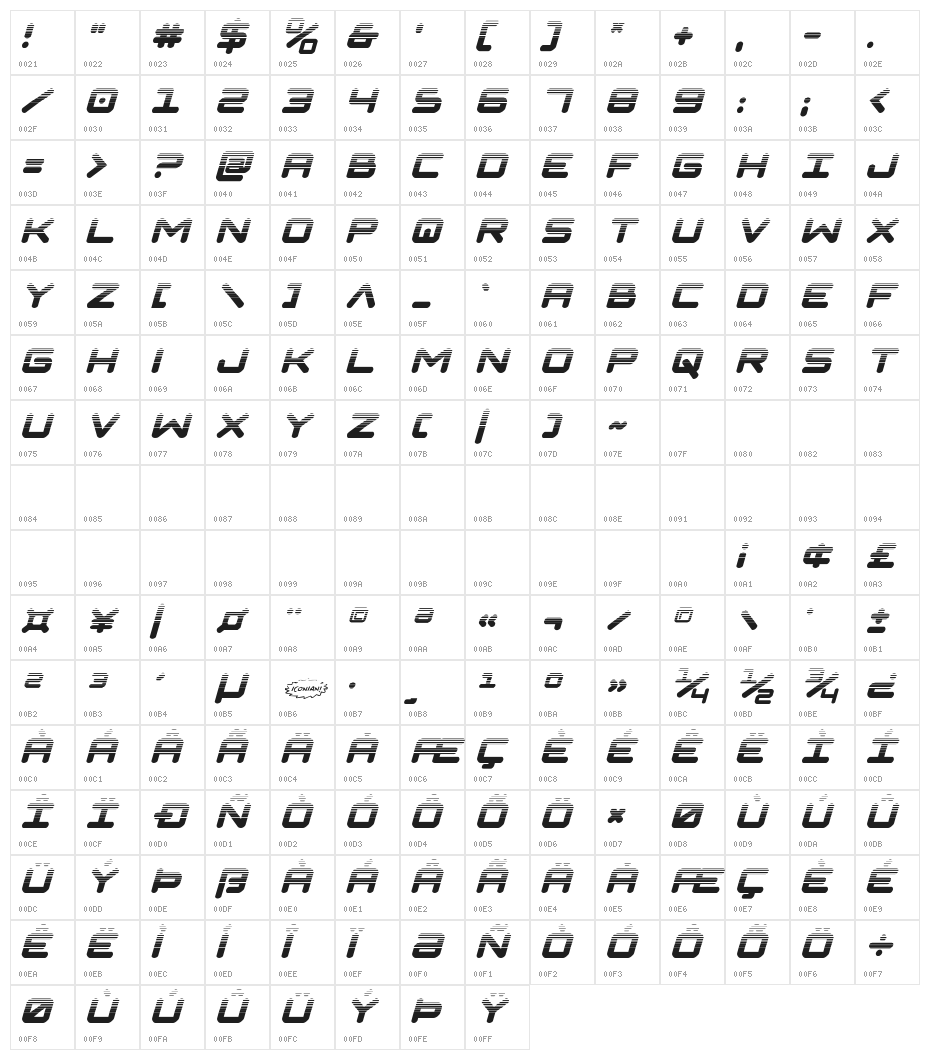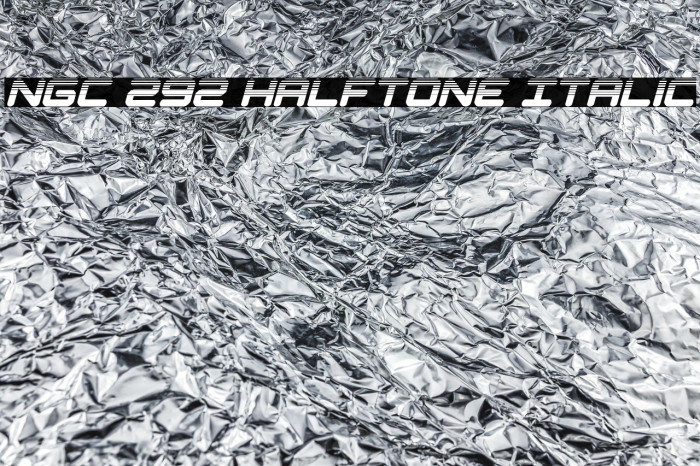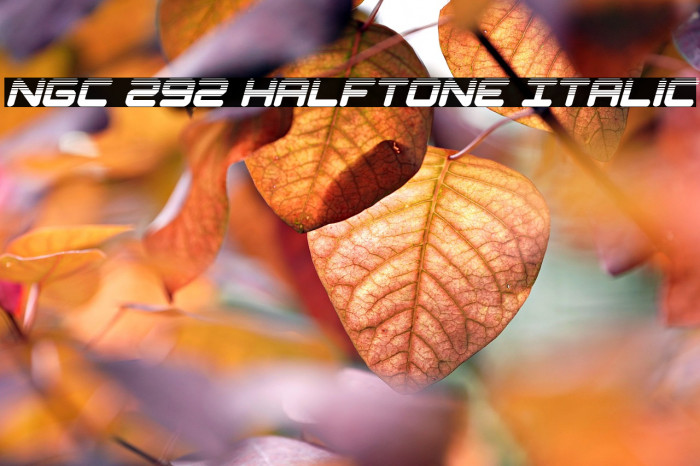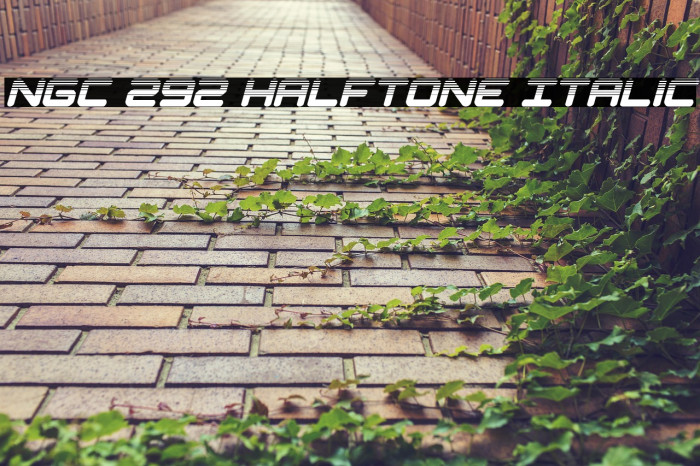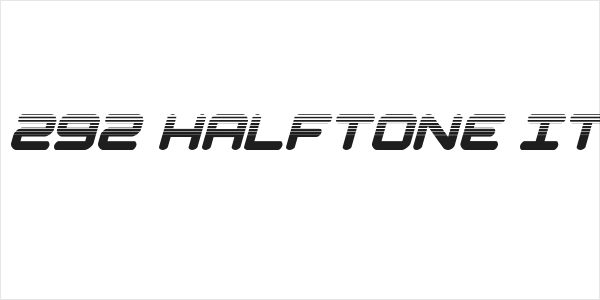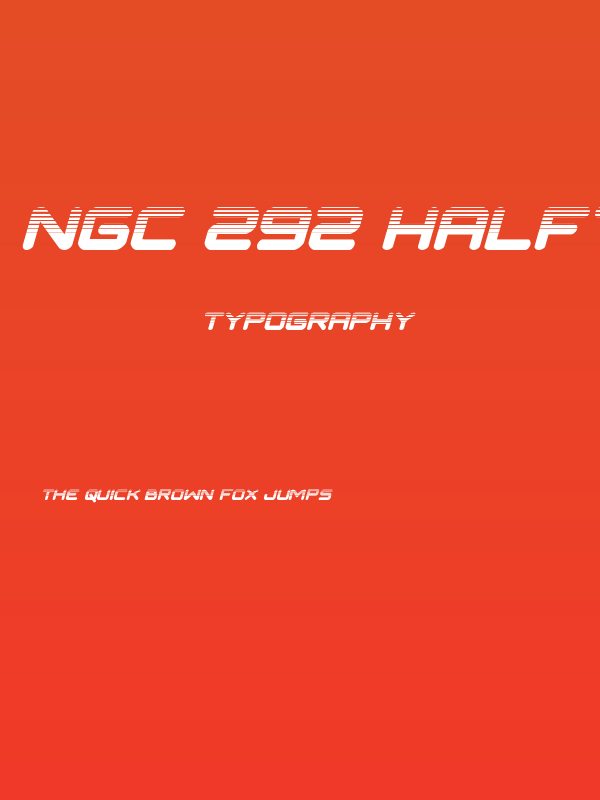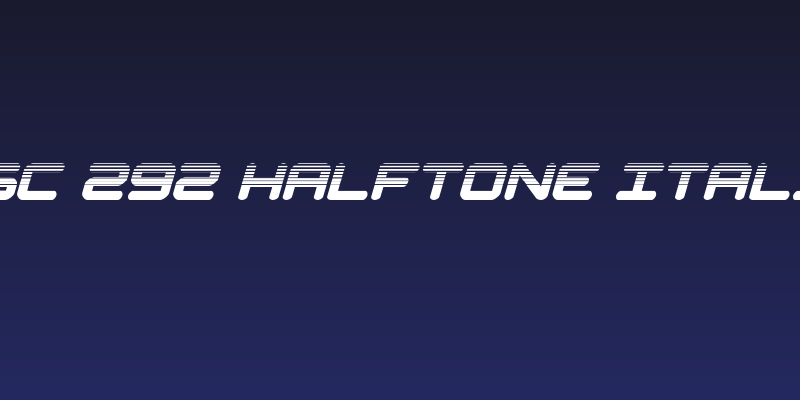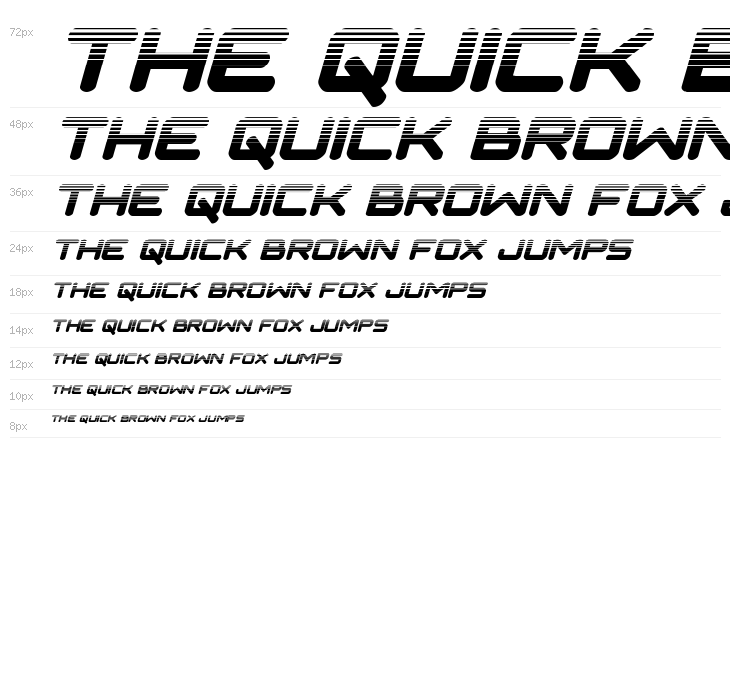
NGC 292 Halftone Italic Font
NGC 292 Halftone Italic Description
This font features a futuristic and dynamic design, characterized by its italicized and halftone style. The letters are bold and have a distinct slanted appearance, giving a sense of motion and speed. The halftone effect is achieved through horizontal lines that create a gradient-like appearance within each character, adding depth and texture. The overall look is modern and tech-inspired, making it suitable for projects that require a cutting-edge aesthetic. The characters are well-defined, with a consistent stroke width that enhances readability while maintaining a unique visual appeal.
| Proposed Projects | Ideal for technology branding, sci-fi posters, video game titles, and futuristic-themed designs. |